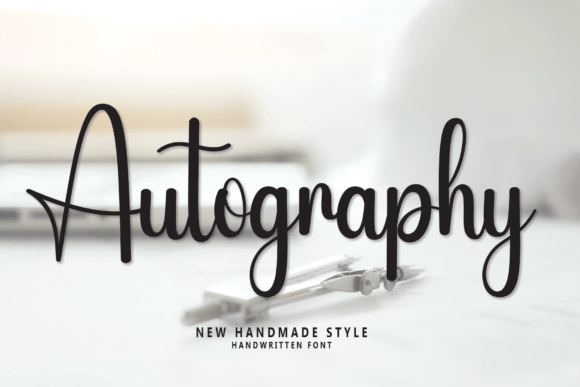
Unlock Your Creativity with the Perfect Font: Autography Font
Have you ever been brainstorming a new project, and suddenly, a spark of inspiration strikes? You grab a pen and start scribbling down your ideas, feeling the excitement build up as your creative vision takes shape. It’s in these moments that we often overlook the importance of the tool that brings our ideas to life – the font we choose to represent our brand or design.
Enter the Autography Font, a neat and casual handwritten font that’s about to revolutionize the way you approach your creative projects. This incredibly versatile font is designed to add a personal touch to your designs, making them stand out in a crowded market. With the Autography Font, you’ll be able to express your unique voice and style, setting your brand apart from the rest.
As a designer, you know how valuable it is to have a font that can adapt to any situation. The Autography Font is a game-changer, offering a level of flexibility that’s hard to find in other fonts. Whether you’re working on a logo, brochure, or social media campaign, this font is sure to elevate your design to the next level.
Autography Font Key Features
- Font Family: Autography is a unique, modern script font designed to convey a sense of elegance and sophistication.
- Size: The font comes in multiple weights, ranging from Thin to Extra Bold, offering a wide range of design possibilities.
- Resolution: Supports high-resolution displays, making it ideal for use in digital applications, such as signage, advertising, and web design.
- Unique Characteristics: Autography features a distinctive, flowing script style with subtle variations in letterform, giving it a highly legible and visually appealing appearance.
Autography Font Review
At first glance, Autography Font is quite an intriguing choice for any designer. It’s a modern script font that exudes elegance and sophistication. ✨ The varying line weights and fluid connections between letters make it perfect for crafting beautiful, handwritten typography.
One of the standout features of Autography Font is its versatility. It can be used for a wide range of applications, from branding and advertising to publishing and editorial content. ✨ The font’s versatility is due in part to its ability to adapt to different font sizes and styles, making it an excellent choice for designers who need a font that can handle various design scenarios.
However, there are some limitations to consider. ⚠️ The font may not be ideal for small text sizes, as the letters can become difficult to read. Additionally, the font’s fluid connections between letters may not be suitable for certain design applications, such as forms or tables.
- Works well for branding, advertising, and publishing content
- Adaptable to different font sizes and styles
- Elegant and sophisticated feel
Overall, Autography Font is a solid choice for designers who want to create beautiful, handwritten typography. While it may have some limitations, its versatility and elegance make it a worthwhile investment for any design project.
Tips for Getting the Most Out of Autography Font
To get the most out of Autography Font, consider the following tips:
- Use it for personal or creative projects to add a unique touch.
- Combine it with other fonts to create a visually appealing contrast.
- Experiment with different font sizes and colors to emphasize key points.
Common use cases for Autography Font include:
- Personal branding and identity design.